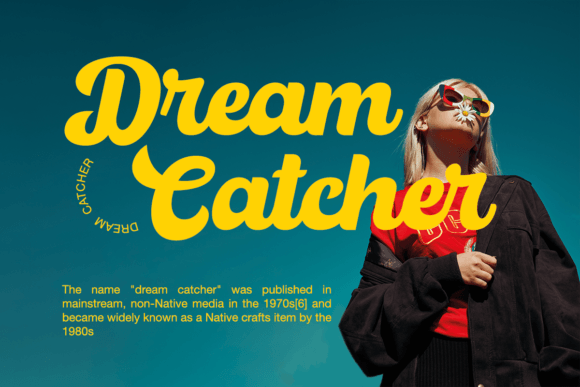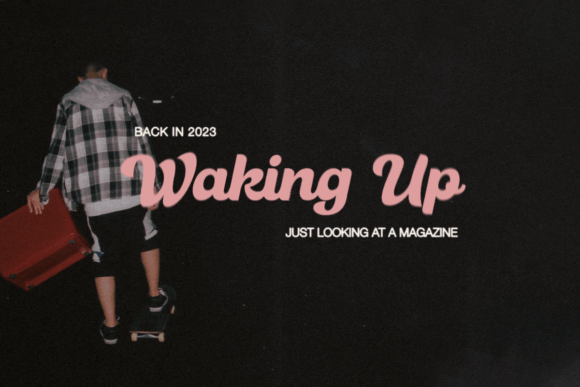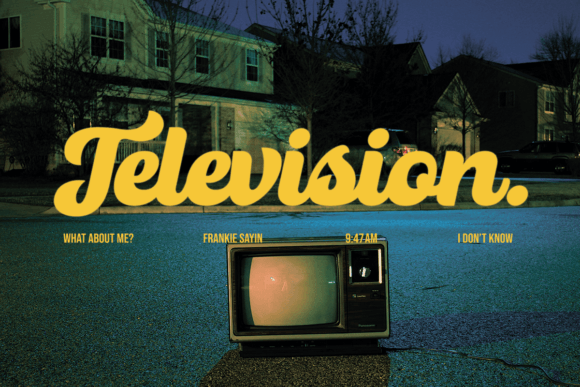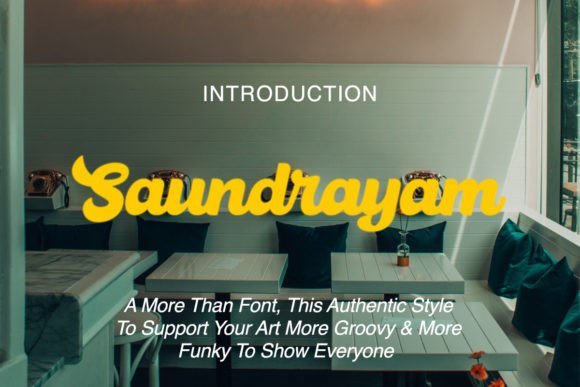
Saundrayam is a retro script font.
This typeface is perfect for various purposes such as magazine titles, posters, logos, T-Shirts, sub titles, business cards, magazines, book covers, wedding invitations, templates, Instagram story post, greeting cards, quotes, etc .